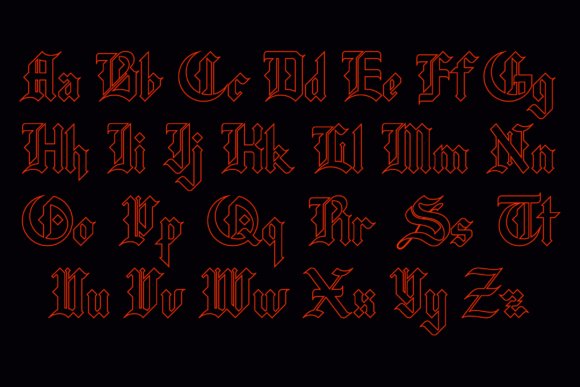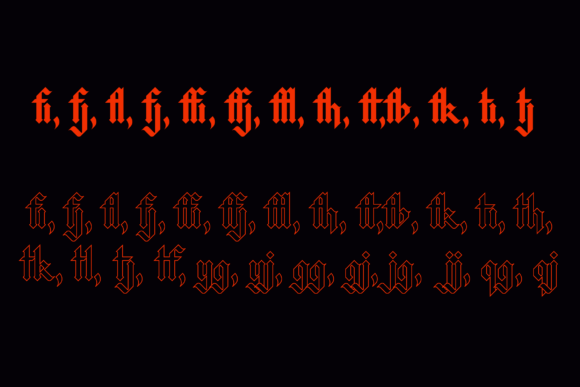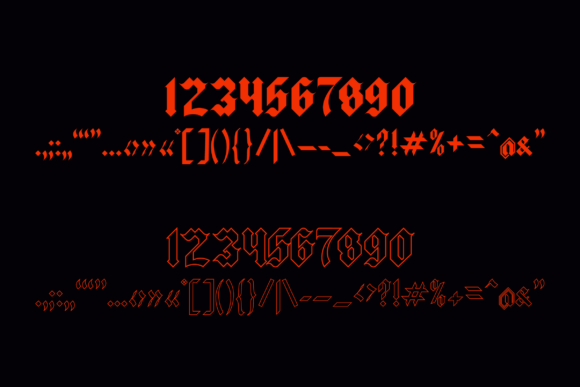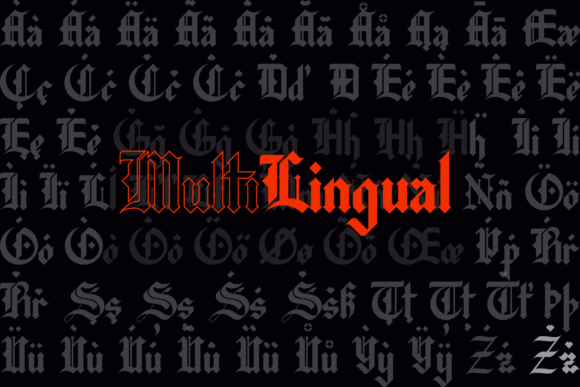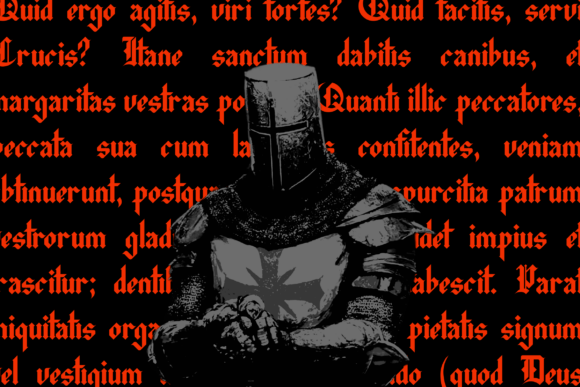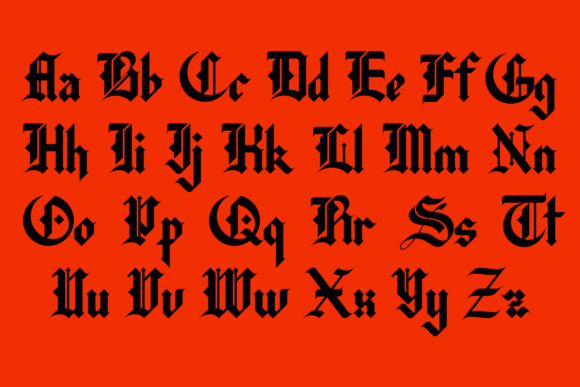
Unveiling Cathedrak Font: A Gothic Masterpiece with Unparalleled Clarity
In the realm of typography, few fonts manage to strike a balance between historic gravitas and modern readability. Cathedrak Font, however, achieves this feat with remarkable finesse. This blackletter typeface seamlessly merges gothic elegance with surprising clarity, making it an ideal choice for designers and crafters seeking to infuse their projects with presence and personality.
The Essence of Cathedrak Font
Cathedrak is not just another blackletter typeface; it’s a design masterpiece that pays homage to the rich history of gothic typography while embracing modern design sensibilities. Its unique blend of traditional and contemporary elements results in a font that exudes both sophistication and approachability.
One of the standout features of Cathedrak is its exceptional readability. In an era where digital media dominates, the importance of clear and legible typography cannot be overstated. Cathedrak’s design ensures that messages are conveyed with utmost clarity, making it perfect for a wide range of applications, from branding and editorial content to packaging and advertising.
Design Philosophy and Features
The design philosophy behind Cathedrak is rooted in the desire to create a typeface that embodies the spirit of gothic typography without compromising on readability. This font is meticulously crafted to provide a distinct character that commands attention while ensuring that the text remains easily readable.
Key features of Cathedrak Font include:
- Multilingual Support: Cathedrak offers full multilingual support, making it a versatile tool for global communication. Whether your audience speaks English, Spanish, French, or any other language, Cathedrak ensures your message is conveyed with precision and style.
- Historic Soul with Modern Twist: The font strikes a perfect balance between historic gothic elements and modern design principles, resulting in a unique and captivating aesthetic.
- Versatility: Cathedrak’s adaptability makes it suitable for various design projects, including logos, titles, editorial content, packaging, and more.
Applications of Cathedrak Font
Cathedrak’s versatility is one of its most compelling attributes. Its applications span across multiple design disciplines:
- Branding: Create memorable brand identities with Cathedrak’s distinctive gothic charm.
- Editorial Design: Enhance your publications with a font that offers both elegance and readability.
- Packaging: Make your products stand out on crowded shelves with Cathedrak’s commanding presence.
- Digital Media: Utilize Cathedrak in digital platforms to add a touch of sophistication and character to your content.
Why Choose Cathedrak Font?
In a market flooded with typefaces, Cathedrak stands out for several reasons:
- Unique Aesthetic: Offers a distinctive gothic look that sets it apart from more traditional typefaces.
- Readability: Exceptionally clear and legible, making it suitable for both print and digital media.
- Multilingual Support: Communicate effectively with a global audience.
Cathedrak Font is a remarkable addition to the world of typography, offering designers and crafters a unique tool to elevate their projects. Its blend of gothic gravitas and surprising clarity makes it an excellent choice for those seeking to add depth and character to their designs. With its wide range of applications and versatile features, Cathedrak is poised to become a favorite among creative professionals.
Whether you’re working on a branding project, editorial content, or product packaging, Cathedrak Font provides the perfect combination of style, readability, and personality. Experience the power of gothic typography with a modern twist by incorporating Cathedrak into your design arsenal.